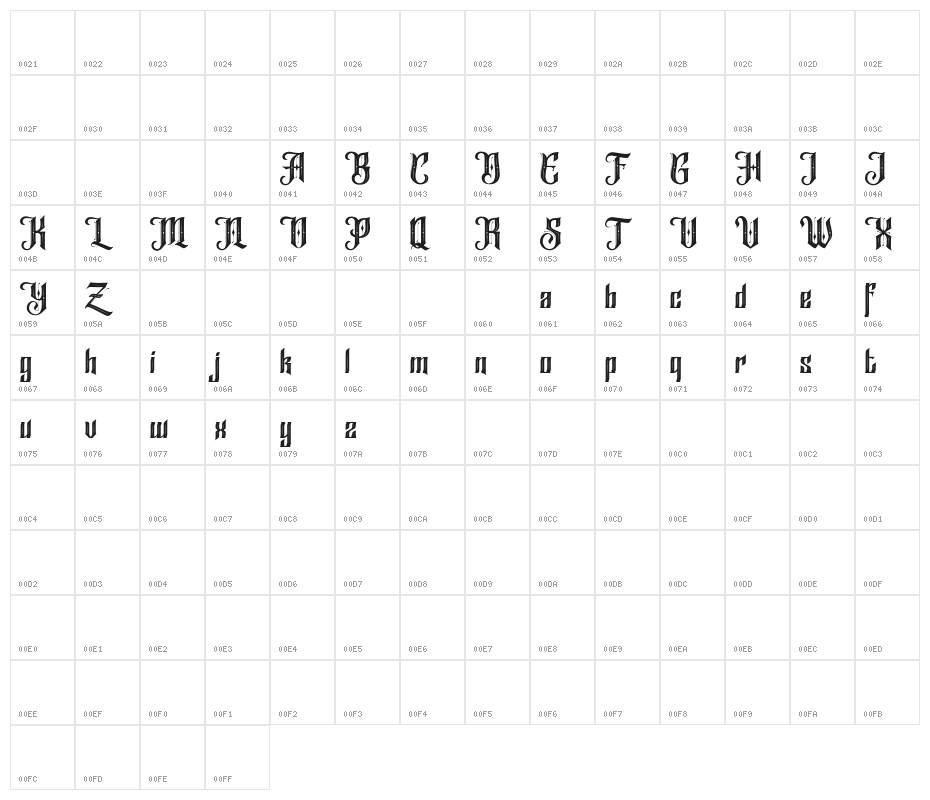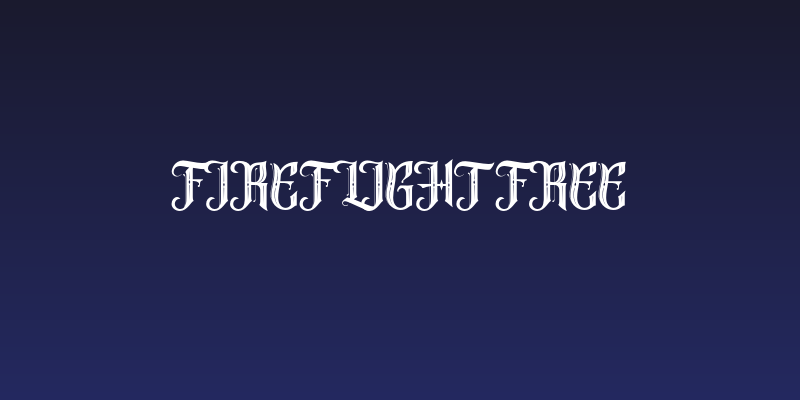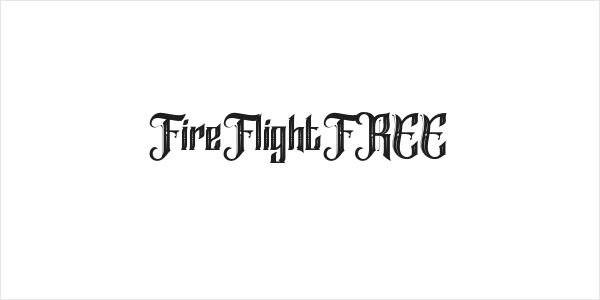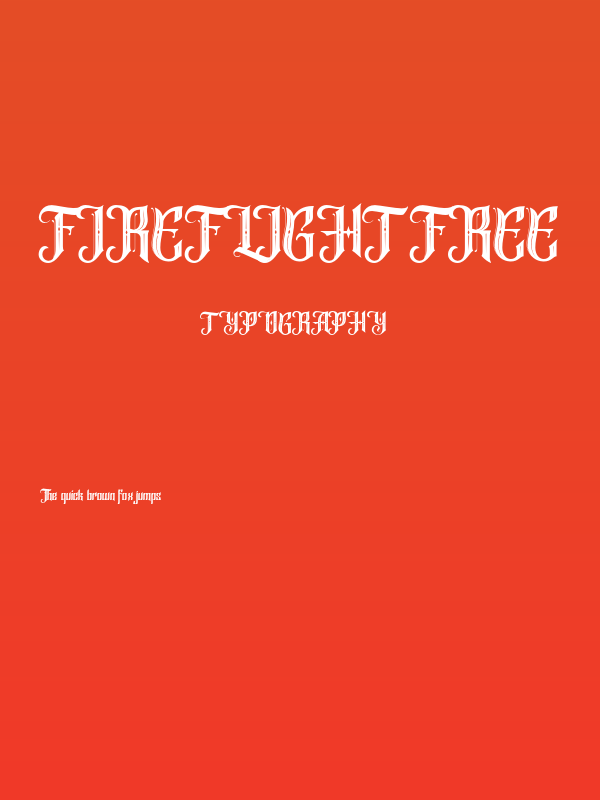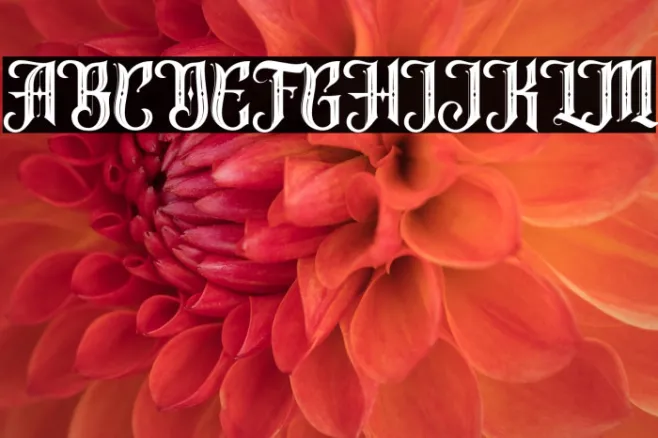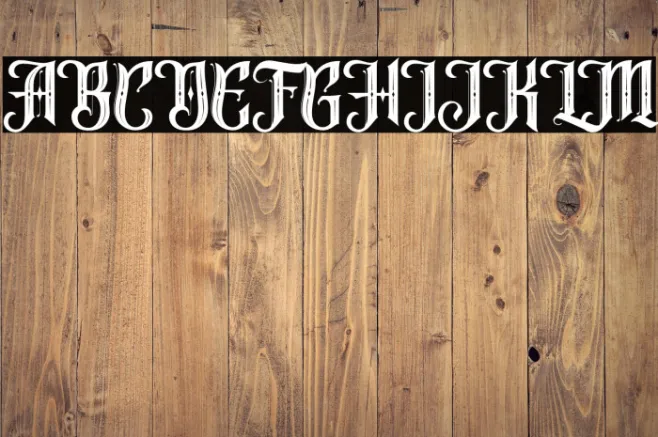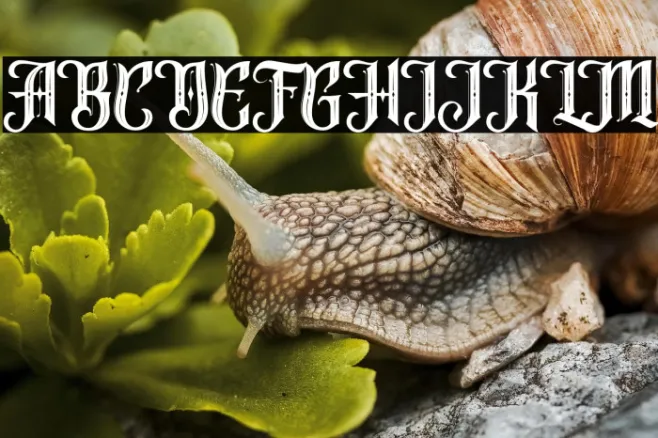
FireFlightFREE Font
FireFlightFREE Description
This font features a bold and intricate design, reminiscent of traditional blackletter styles. Each character is adorned with sharp, angular lines and decorative elements, giving it a distinct and ornate appearance. The uppercase letters are particularly elaborate, with flourishes that enhance their gothic aesthetic. The lowercase letters maintain the same level of detail, ensuring consistency throughout the typeface. This font's unique style makes it ideal for creating striking headlines or logos that require a touch of elegance and historical flair.
| Overall Style | Vintage, Decorative |
| Proposed Projects | Ideal for vintage-themed designs, gothic posters, book covers, and branding that requires a historical or dramatic touch. |